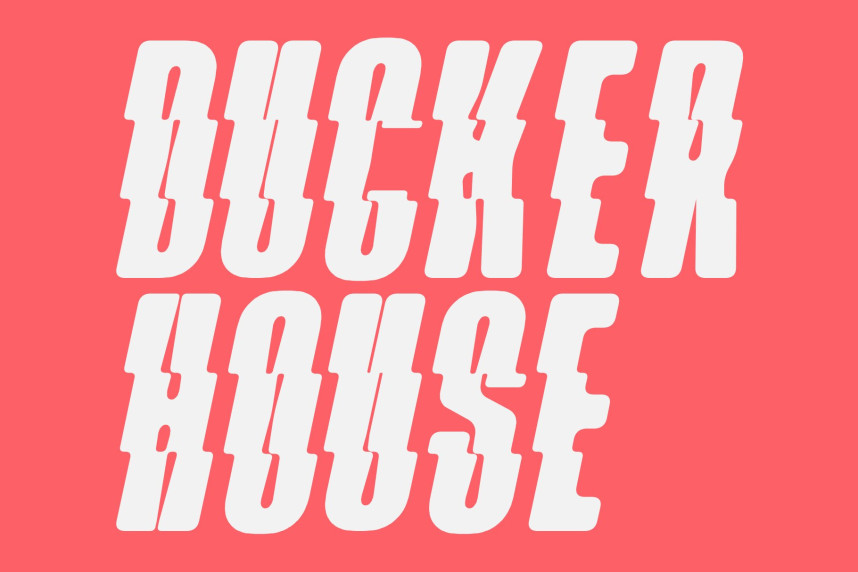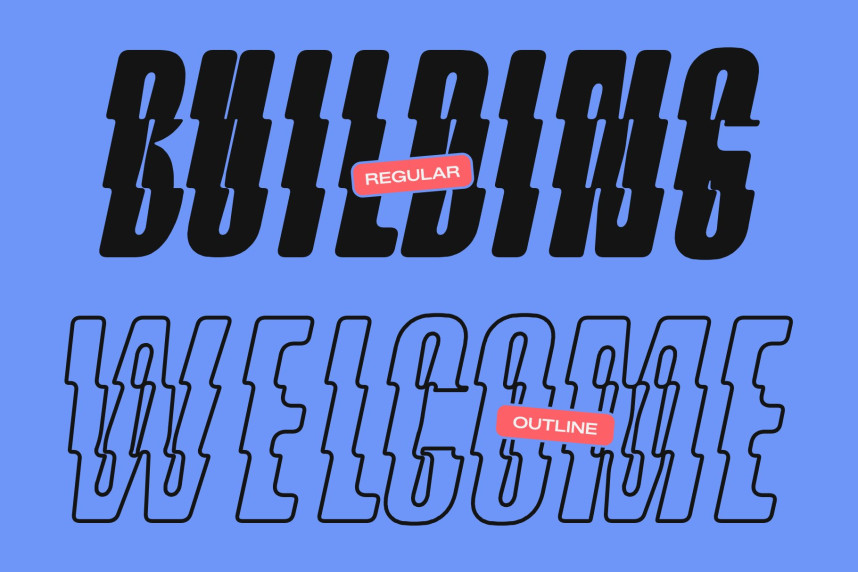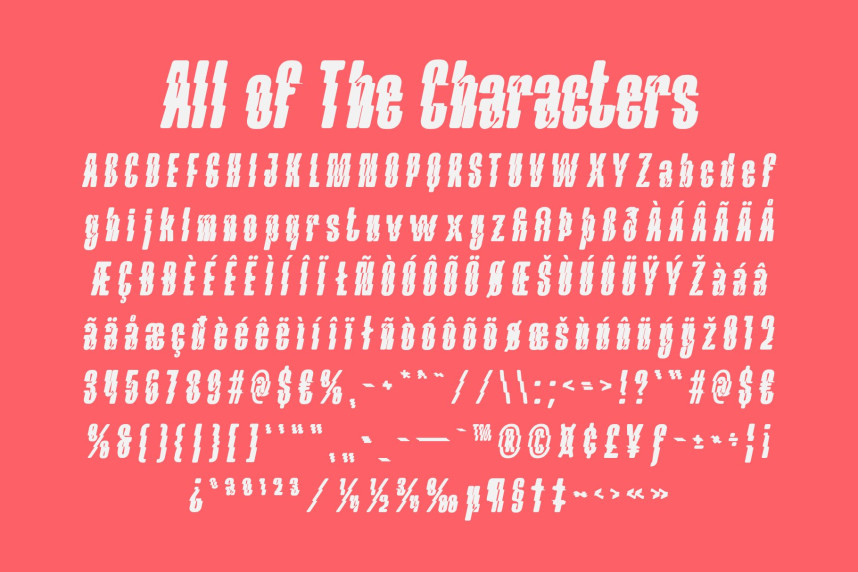
CS Maiden Rippled Font
CS Maiden Rippled Font – Modern Sans Serif Font: Where Precision Meets Fluid Motion
Functional Design with Contemporary Style
This is a modern sans serif font that combines functional design principles with contemporary sophistication. Featuring condensed proportions and carefully crafted inktrap detailing, it delivers a clean, efficient, and highly readable appearance. Its streamlined structure creates a strong visual presence while maintaining the clarity and precision required for modern design applications.